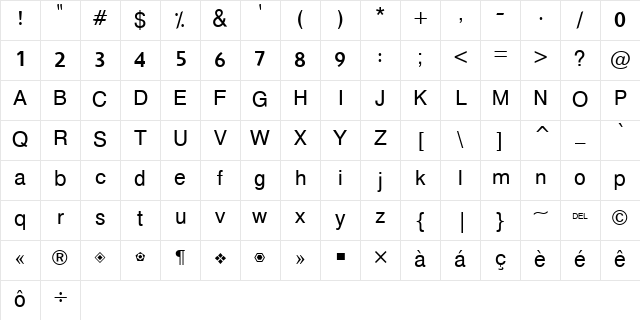
Hacen Beirut Lt X3 Regular Free Font
Hacen Beirut Lt X3 Regular
Foundry: Muhammad Hacen
Designer: Muhammad Hacen
Design Context for Hacen Beirut Lt X3
Hacen Beirut Lt X3 is a composed and adaptable typeface that performs quietly and consistently across a wide range of design contexts. Its slender proportions lend an understated elegance to any composition.
Who designed the Hacen Beirut Lt X3 Regular font?